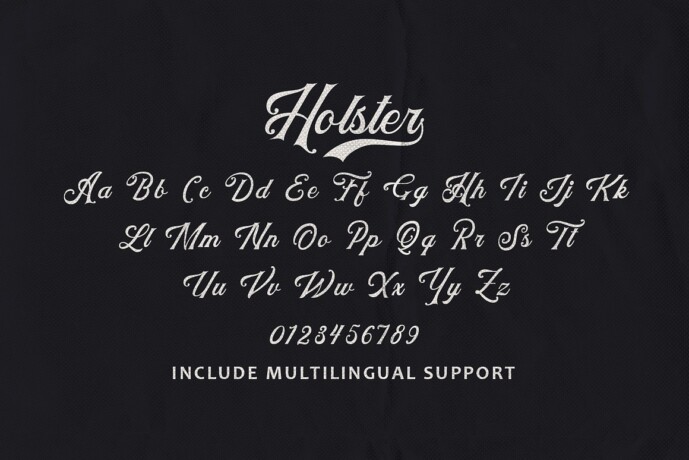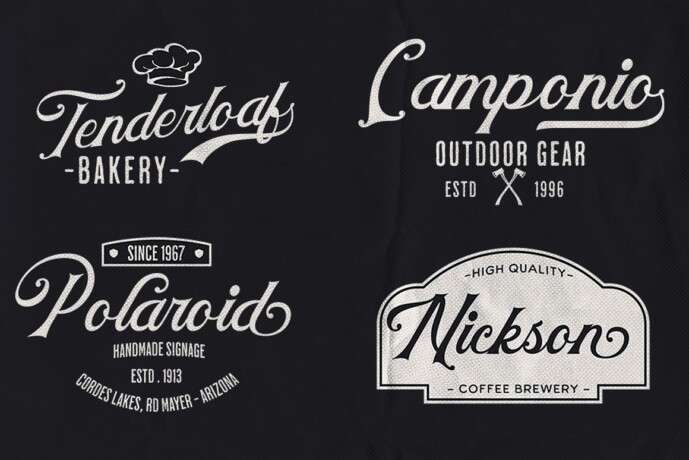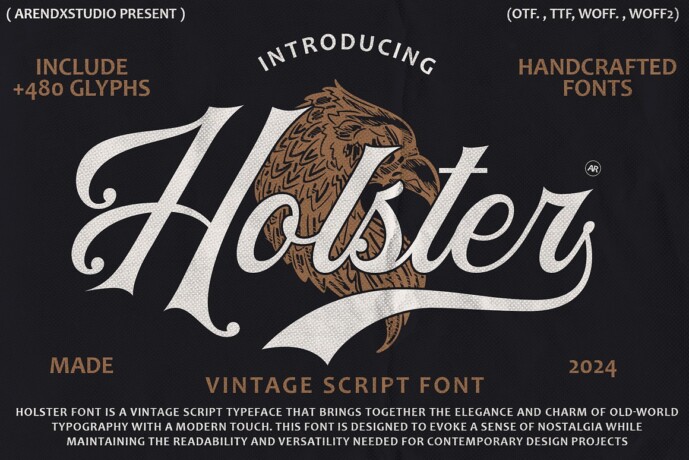
Holster Font
Designer: Arendxstudio
Holster Font is a beautifully designed vintage script font that exudes the charm and elegance of classic penmanship. Its intricate and stylish design makes it perfect for projects that need a touch of nostalgic sophistication.